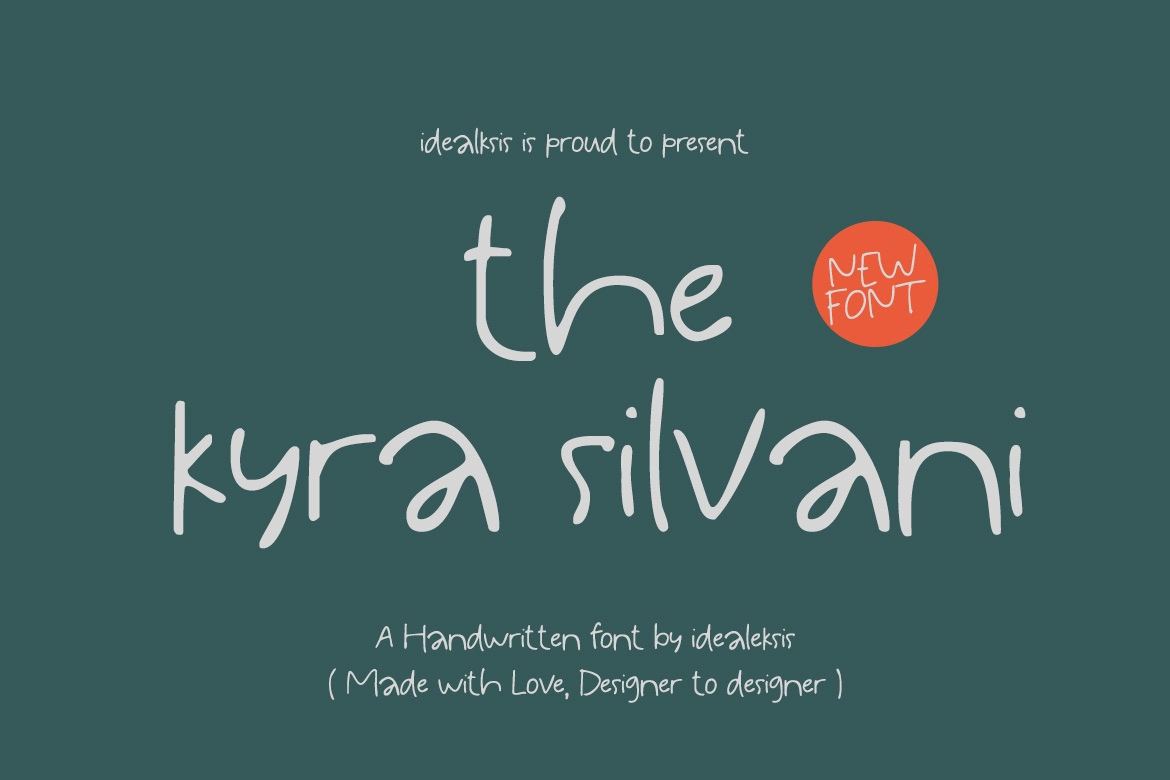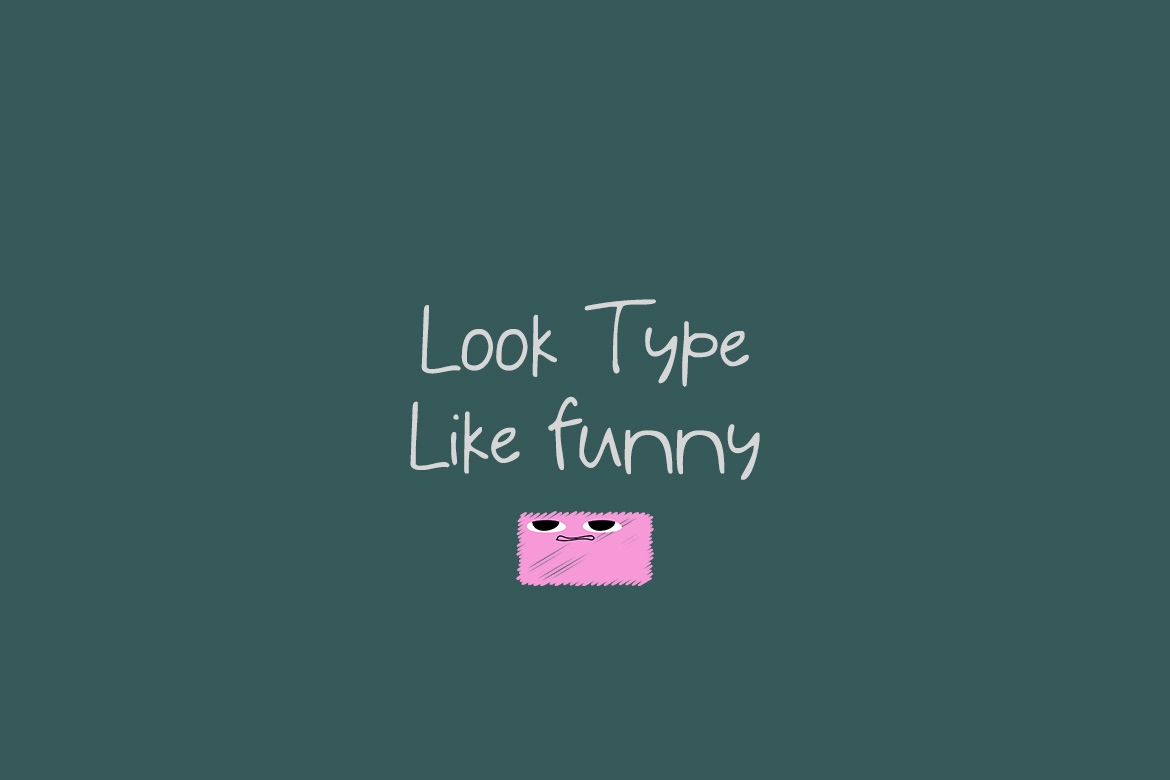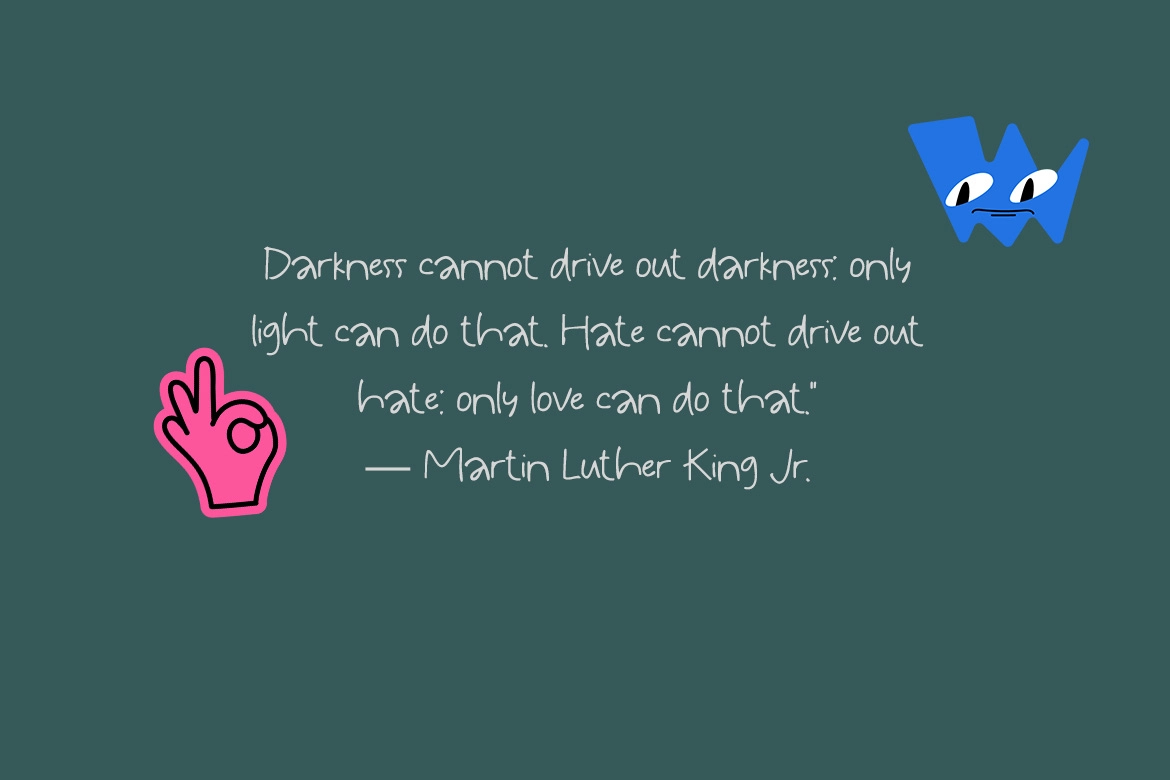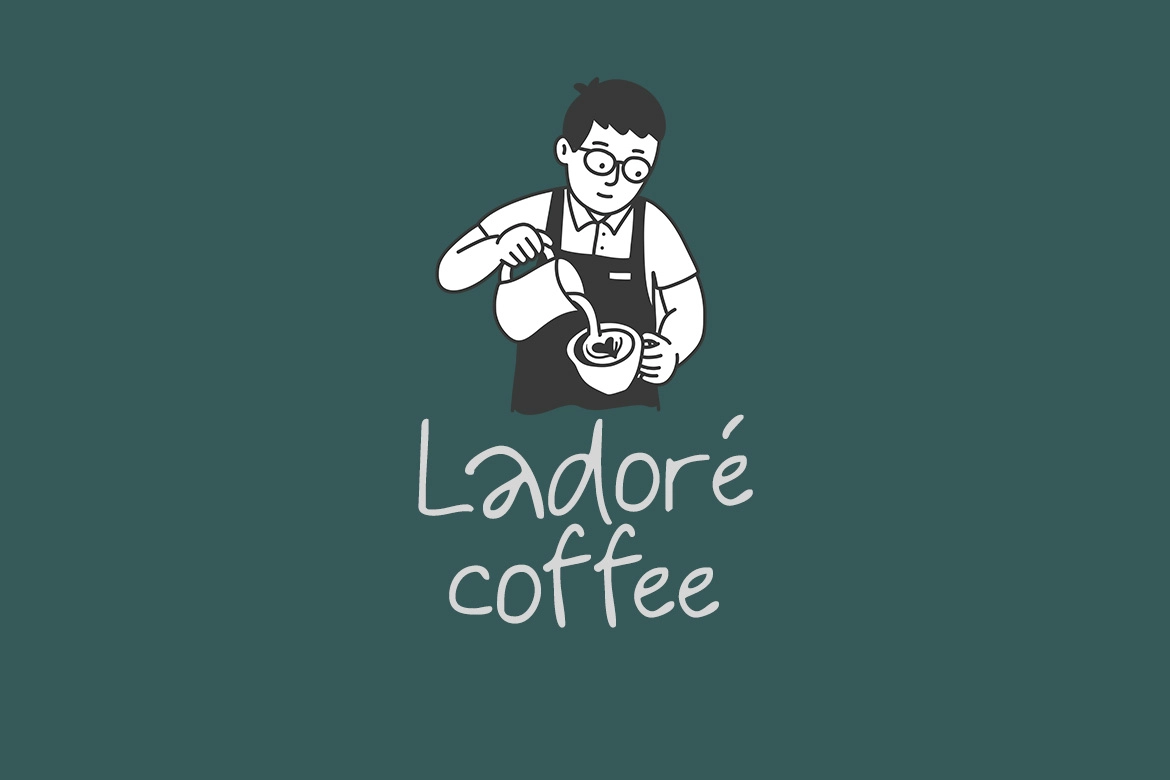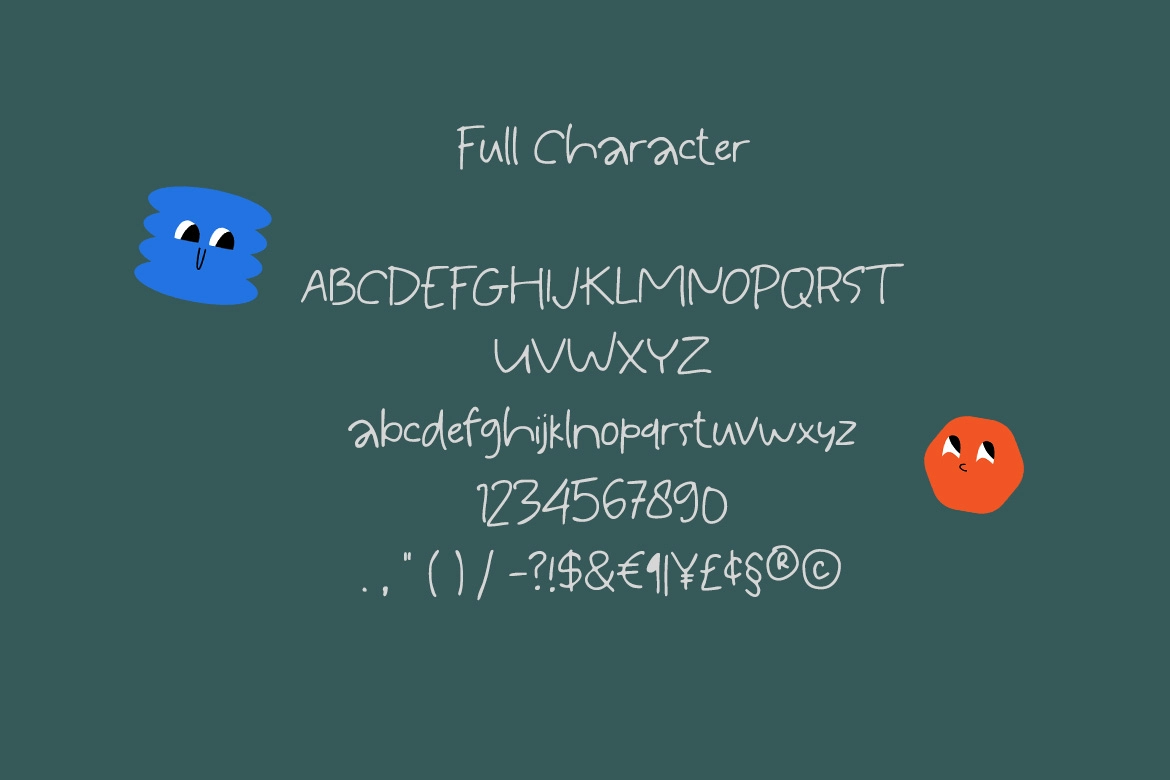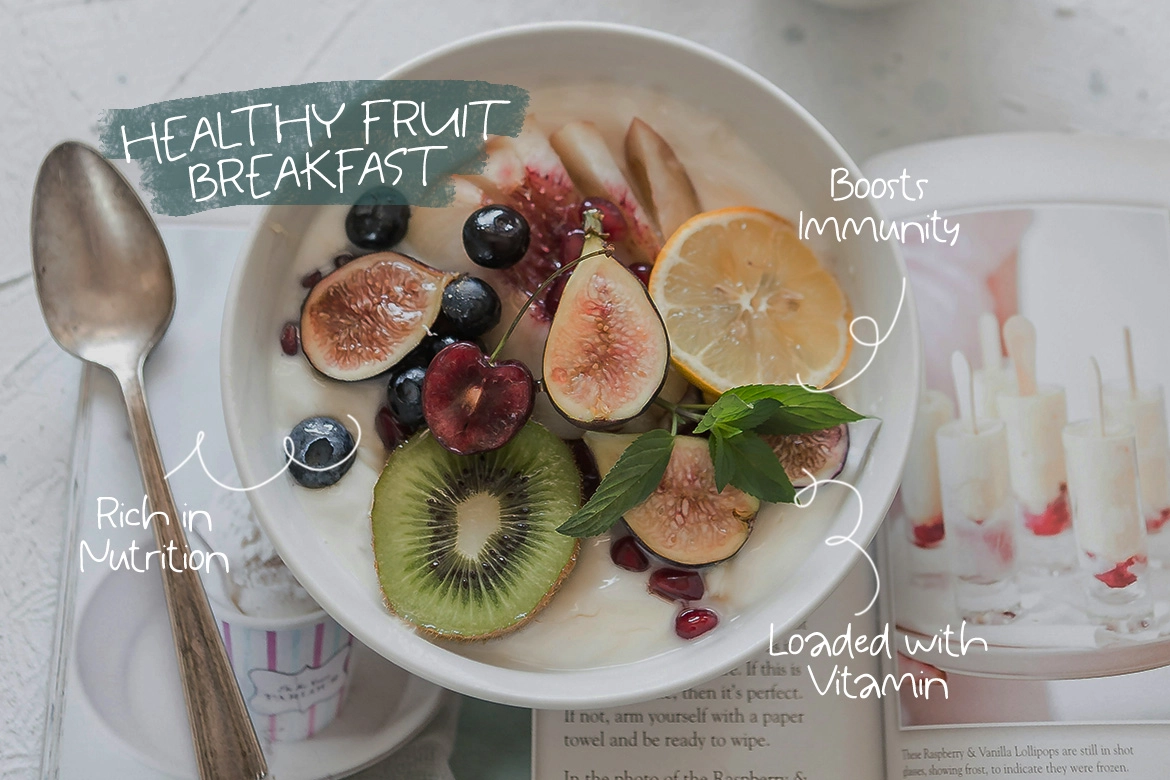
The Kyra Silvani - Cute Handwriting Font
This handwritten typeface has thin marker-like strokes, loose spacing, and a charmingly uneven rhythm. Its cute personality is clear in the tall ascenders, rounded curves, and slightly wobbly lines, giving text a casual sketchbook look.
Kyra Silvani is made for café logos, quote graphics, children’s book covers, sticker sets, greeting cards, social media posts, product labels, classroom materials, invitations, packaging, YouTube thumbnails, and personal branding. It suits cheerful captions, informal headlines, and small notes that need a hand-drawn voice with clean readability.